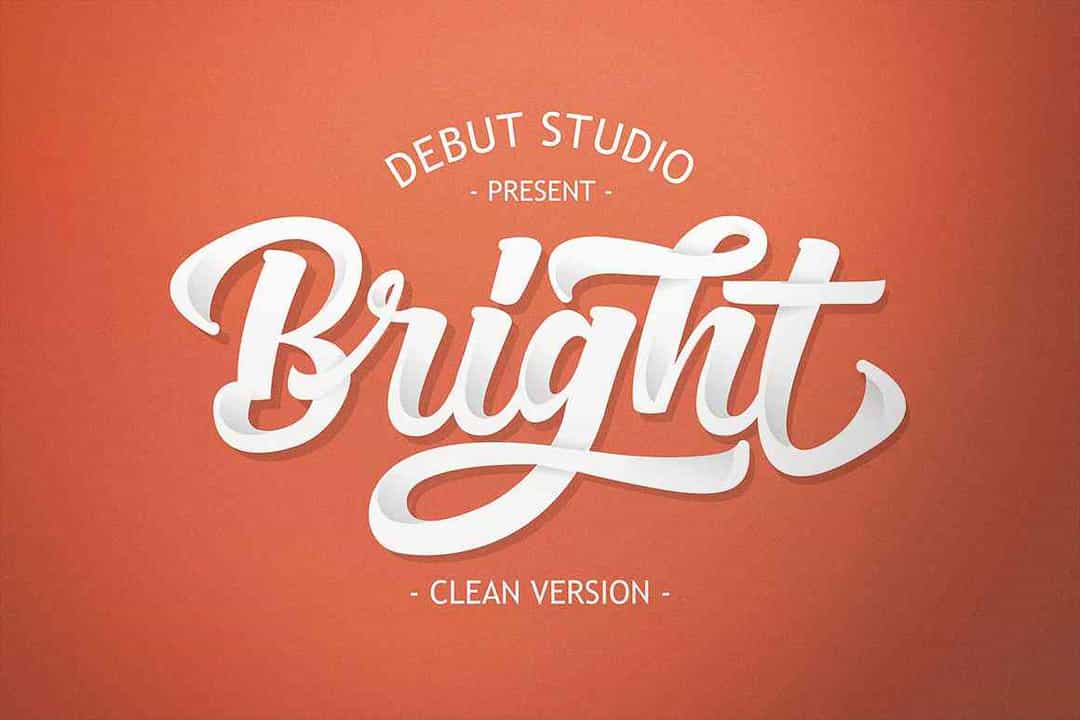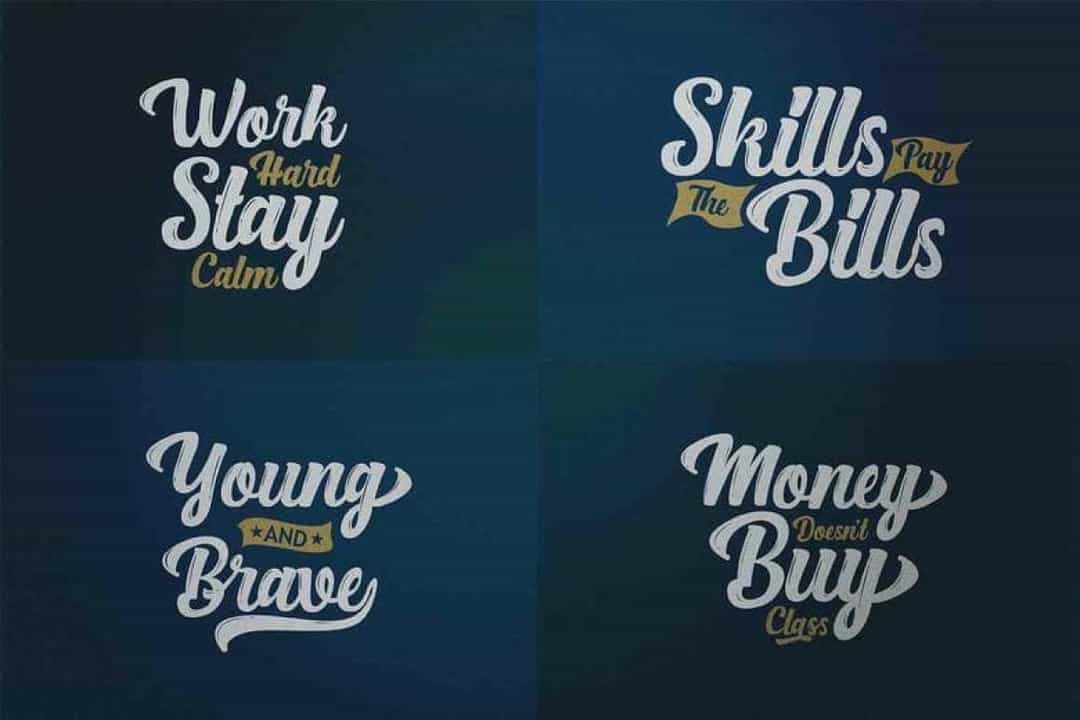
Bright was released with Debut Studio as one of the most affordable script font packages that one can find in the market today, which made it ideal for use in logo designs as well as other applications that require the use of bold fonts such as branding. Developed and published for logotype brands and designs that utilizes bold fonts such as Logotype brands or any other designs that have bold fonts like Logotype brands